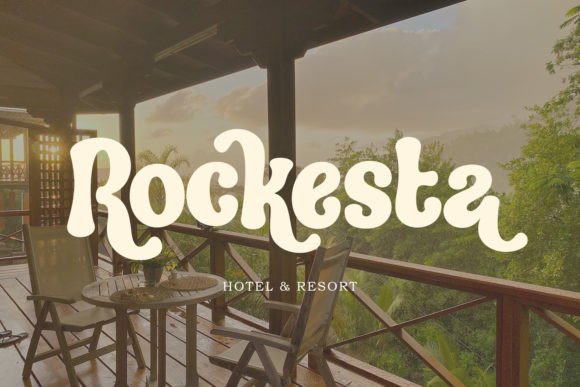
Regina Font
Regina feels playfully nostalgic and delivers an incredible vintage aesthetic. Use this display font to add that special retro touch to any design idea you can think of!